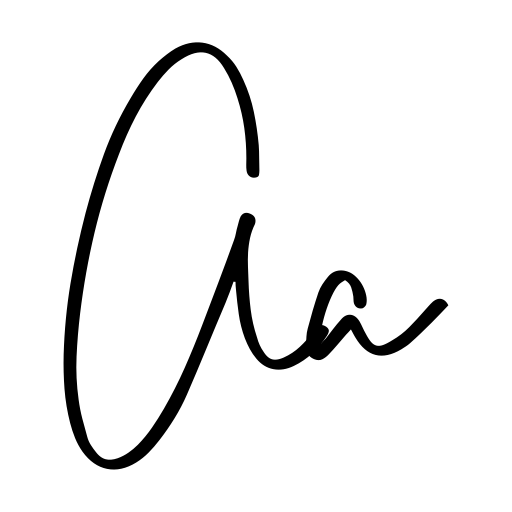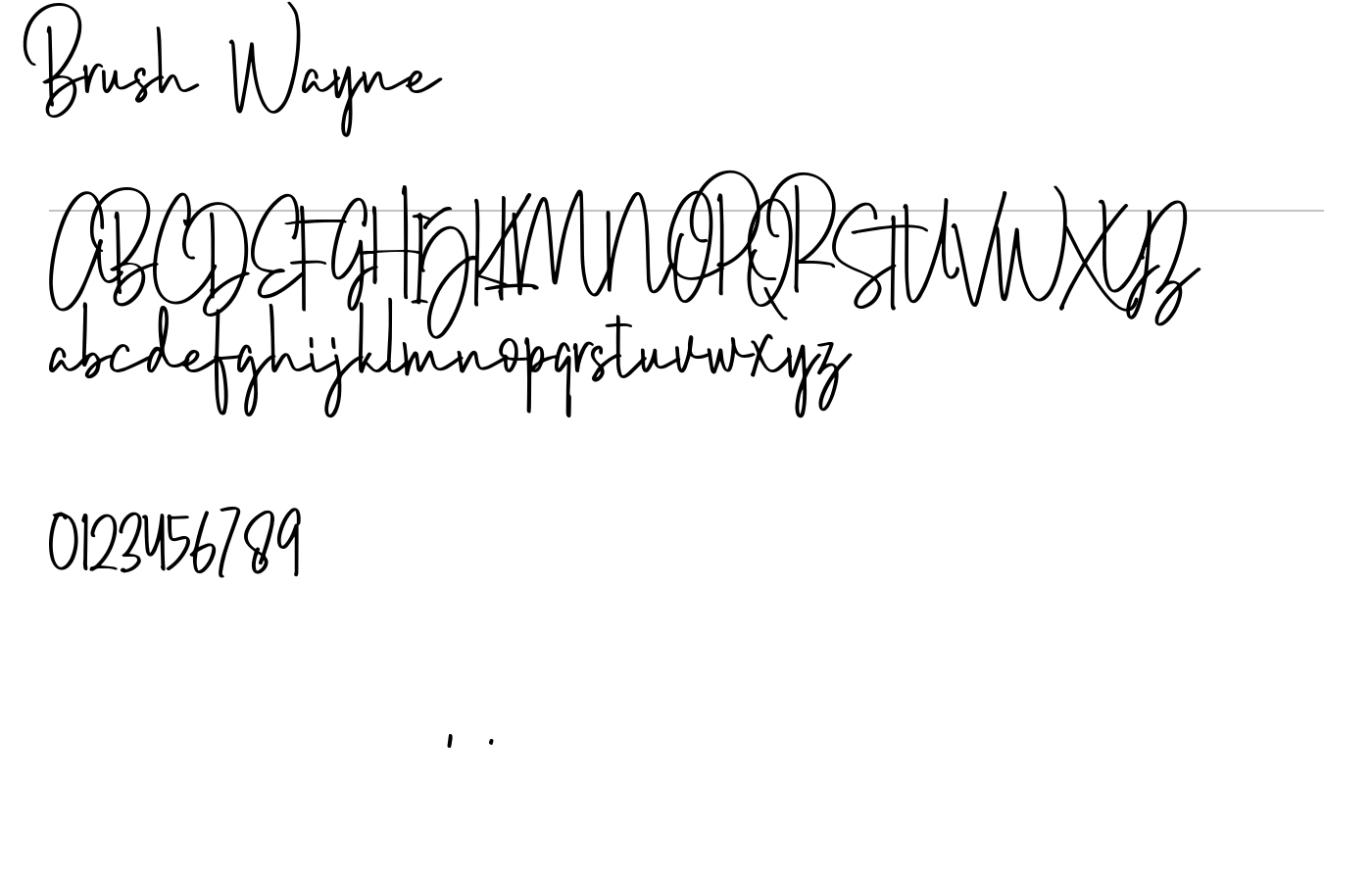
Brush Wayne is a lively, hand-drawn script font with a casual, playful feel created by its tall, narrow letterforms and loose, flowing strokes. Its thin weight and energetic curves make it perfect for adding a personal, creative touch to branding, invitations, or social media graphics that aim for a warm, approachable style. This font works best in designs where a handwritten, artistic vibe is desired, especially in headlines or logos that want to convey friendliness and modern creativity.
Brush Wayne Font
About Brush Wayne Font
| Font family | Brush Wayne Font |
| Designer | Saeful Maarif |